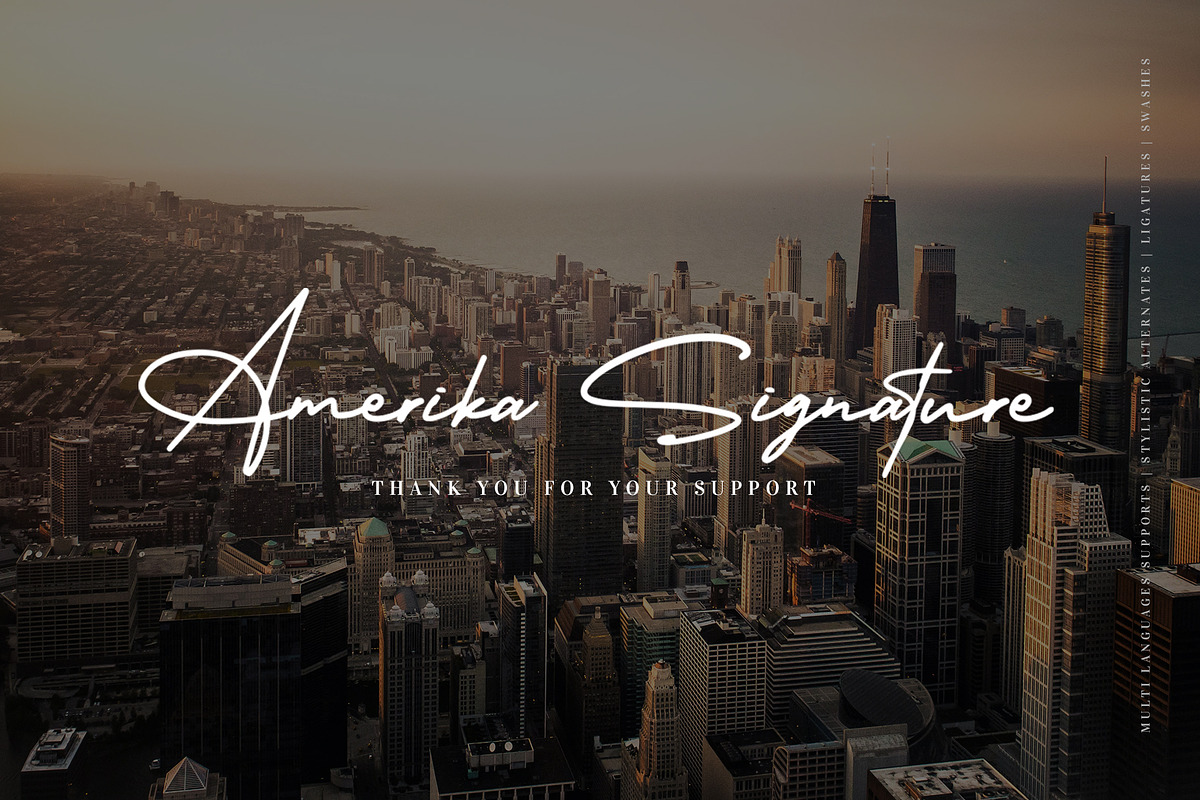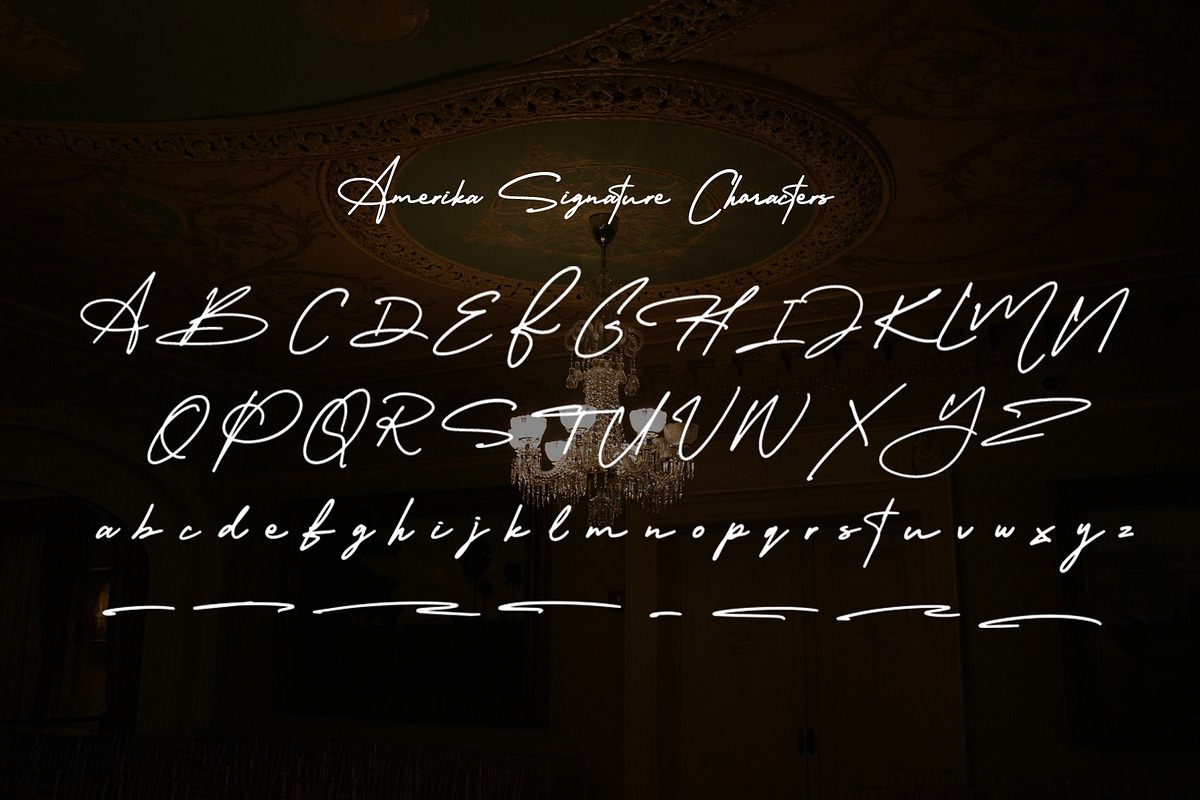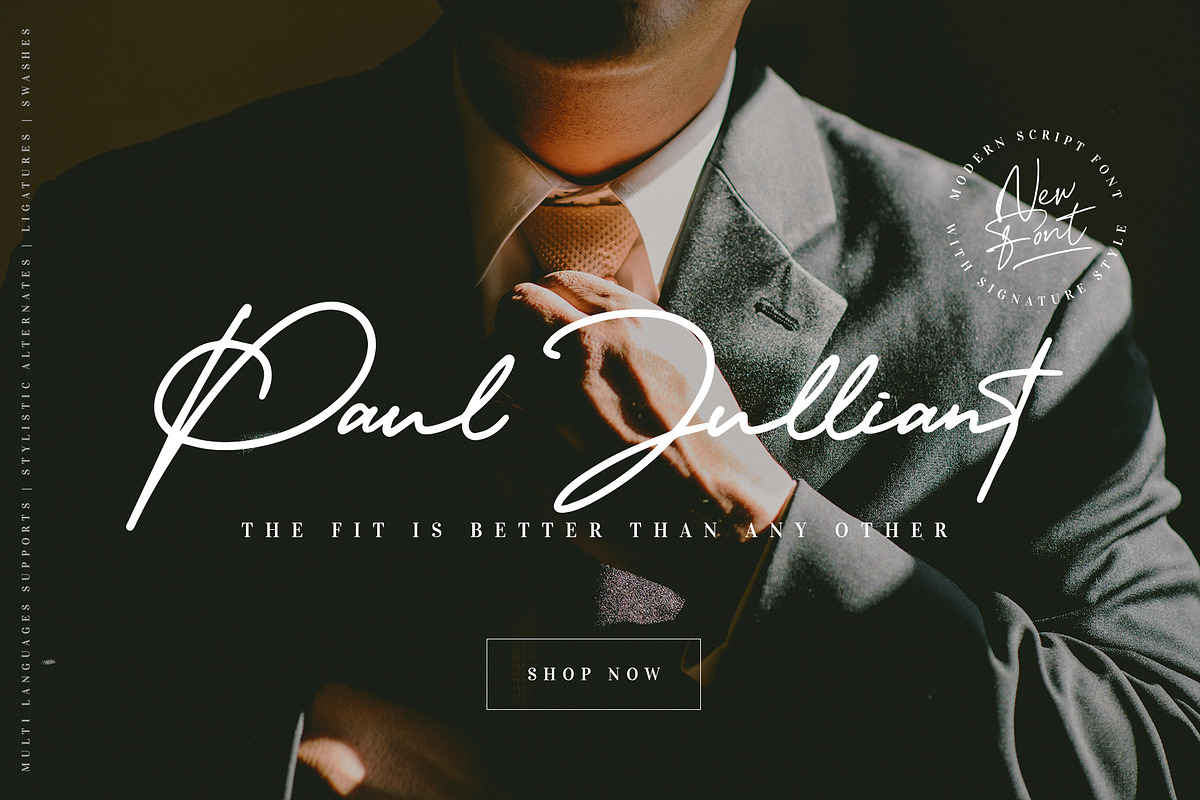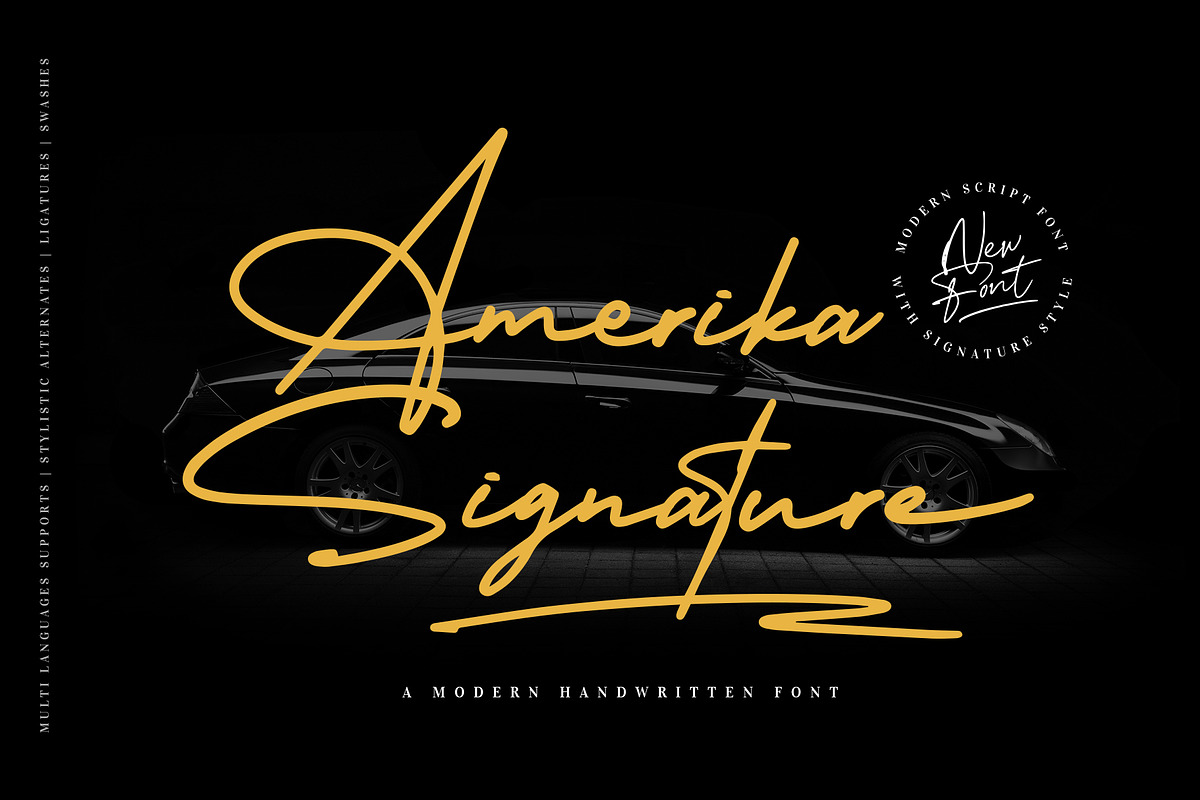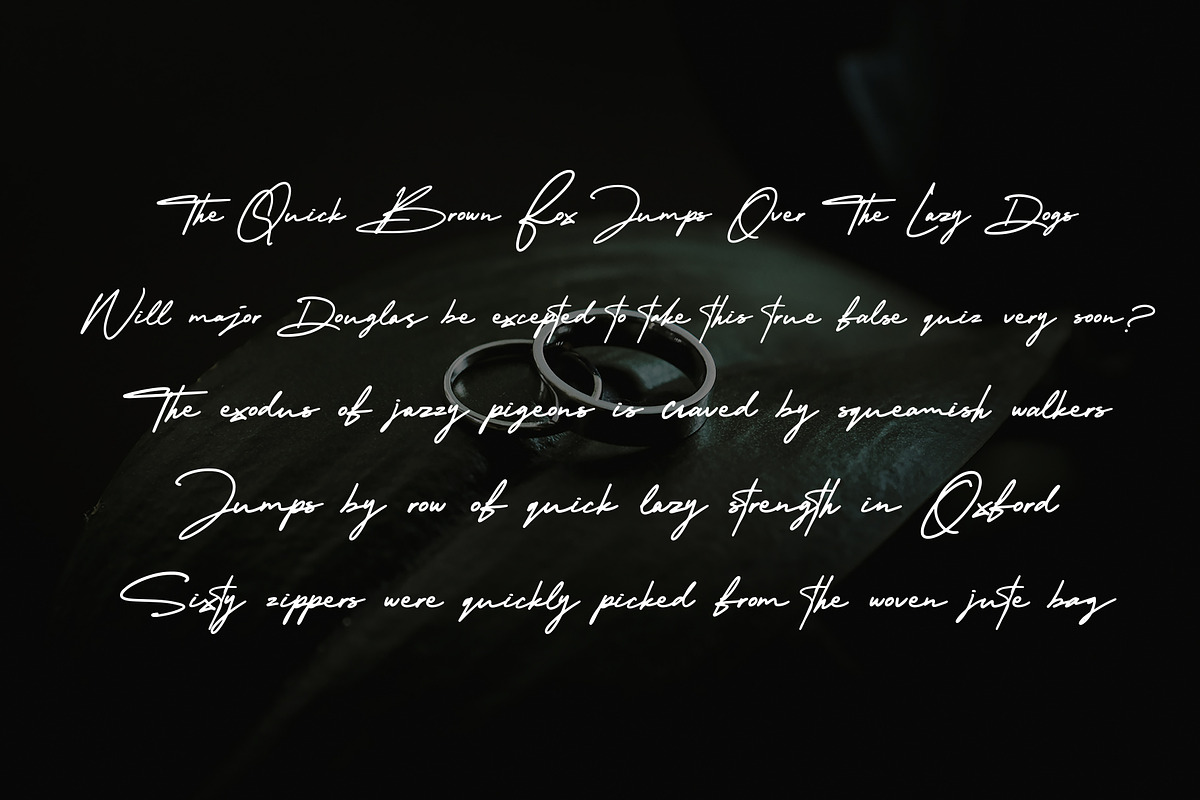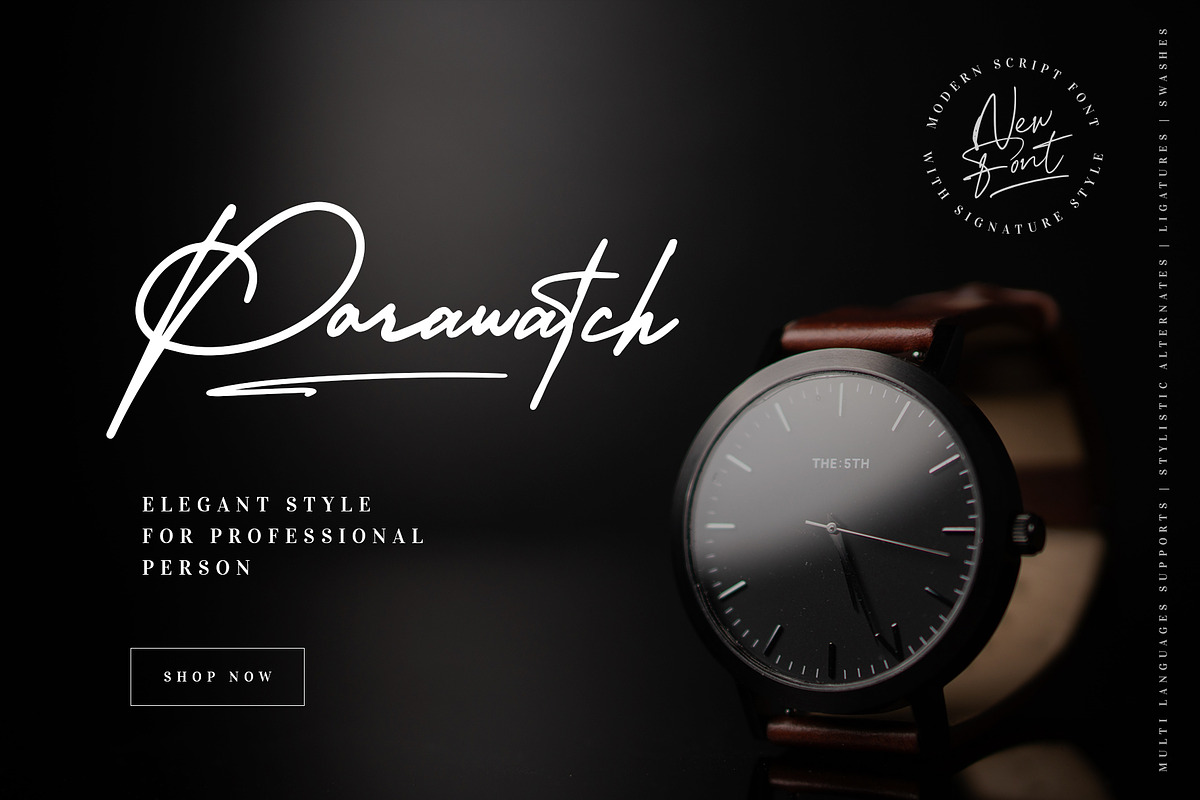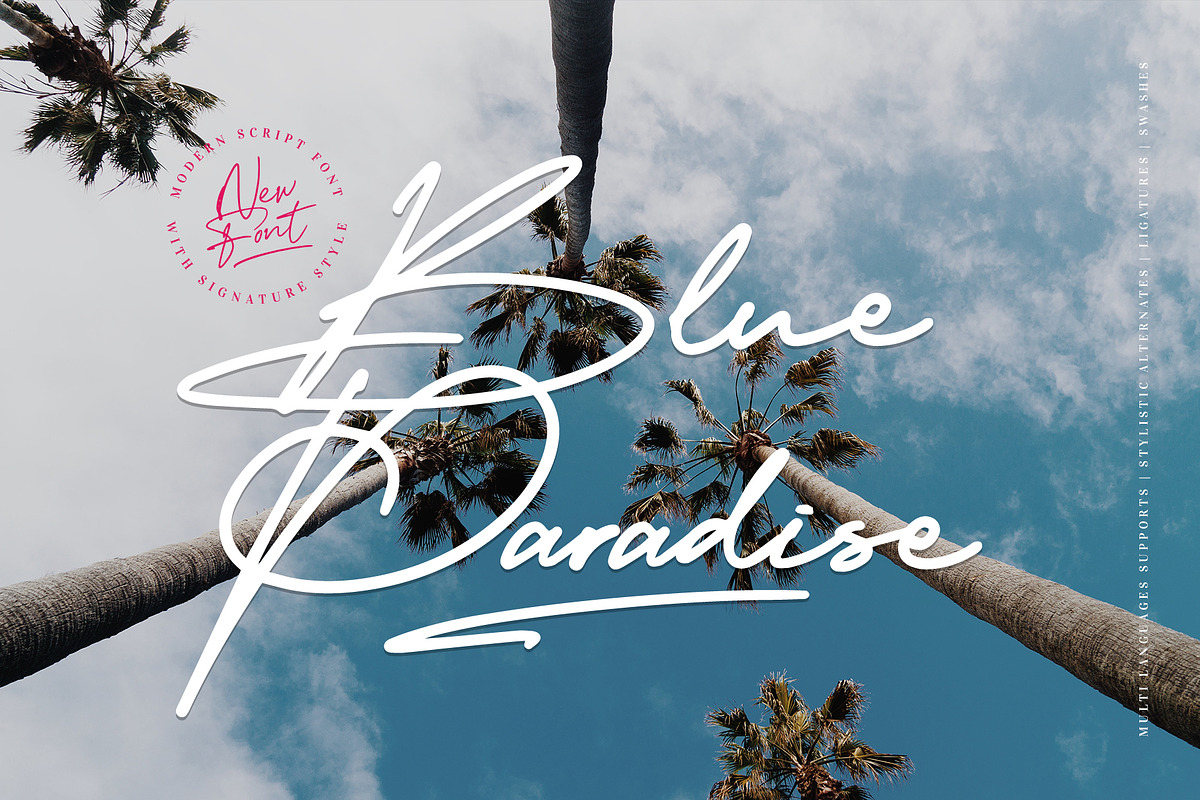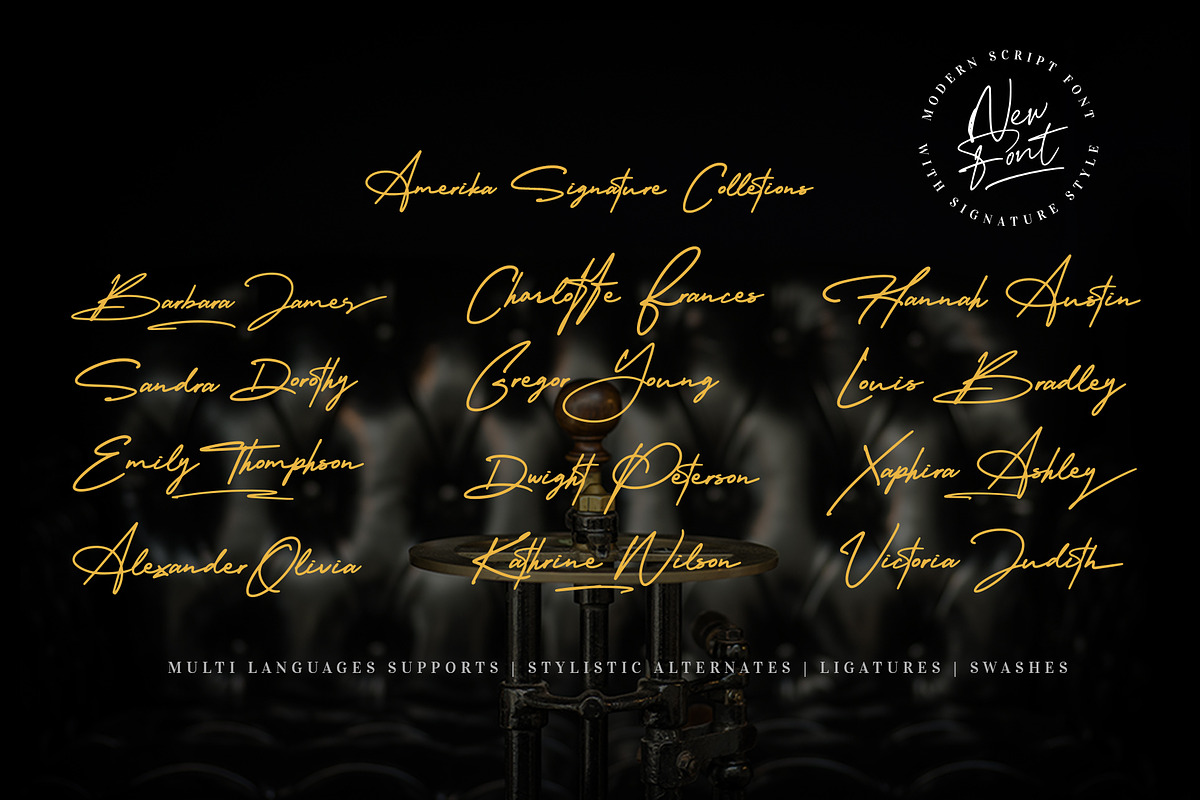
Amerika Signature
Introducing Amerika Signature is a modern calligraphy script that works perfectly together with the signature style is ideal for elegant branding design projects, packaging, social media, name card, logo design, wedding invitations. Amerika Signature includes handy OpenType features that make the font look more natural like a signature.
Includes universal beginning swash for lowercase letters, a full set of lowercase alternates stylistic set letters with ending swashes, and some of the ligatures. So what are you waiting for? Grab it fas and make some awesome design stuff with Amerika Signature! Thank You.